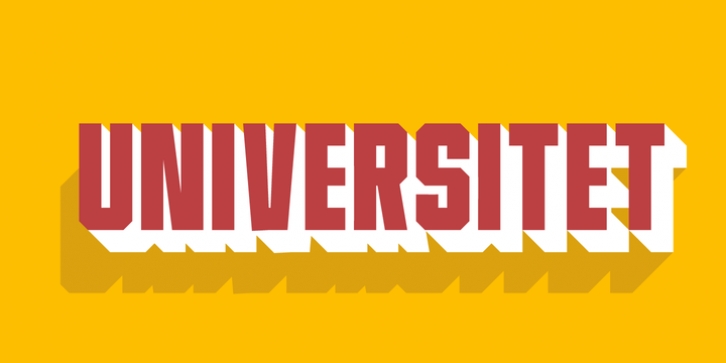
Universitet was designed by Jakob Fischer and published by PizzaDude.dk. Universitet contains 7 styles and family package options.
A college letter based font, great for headlines and shoutouts!
Universitet Narrow·
Universitet Narrow 2·
Universitet Narrow 3·
Universitet Regular·
Universitet Wide·
Universitet Wide 2·